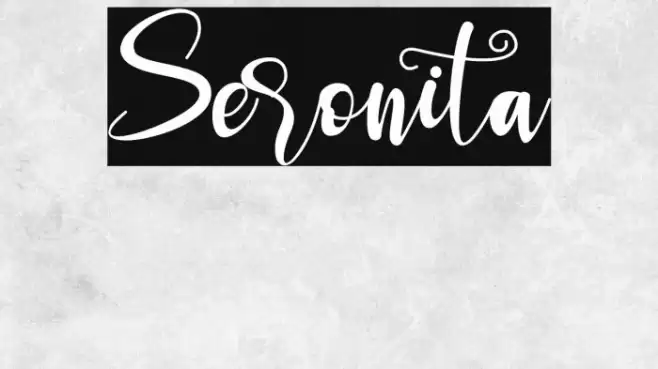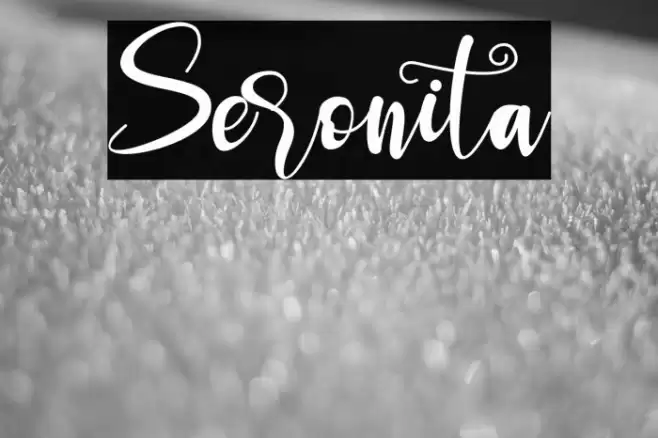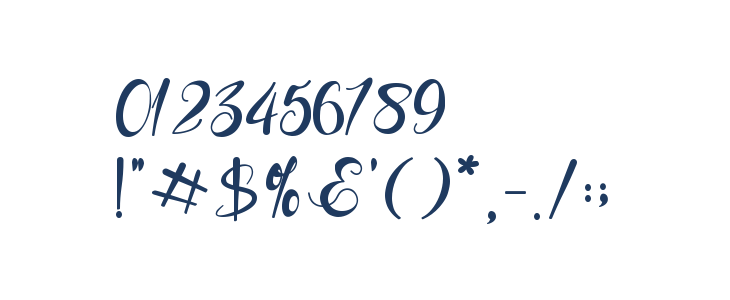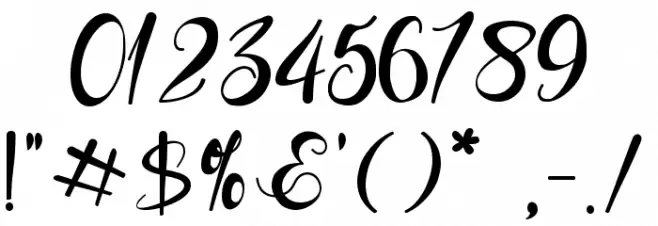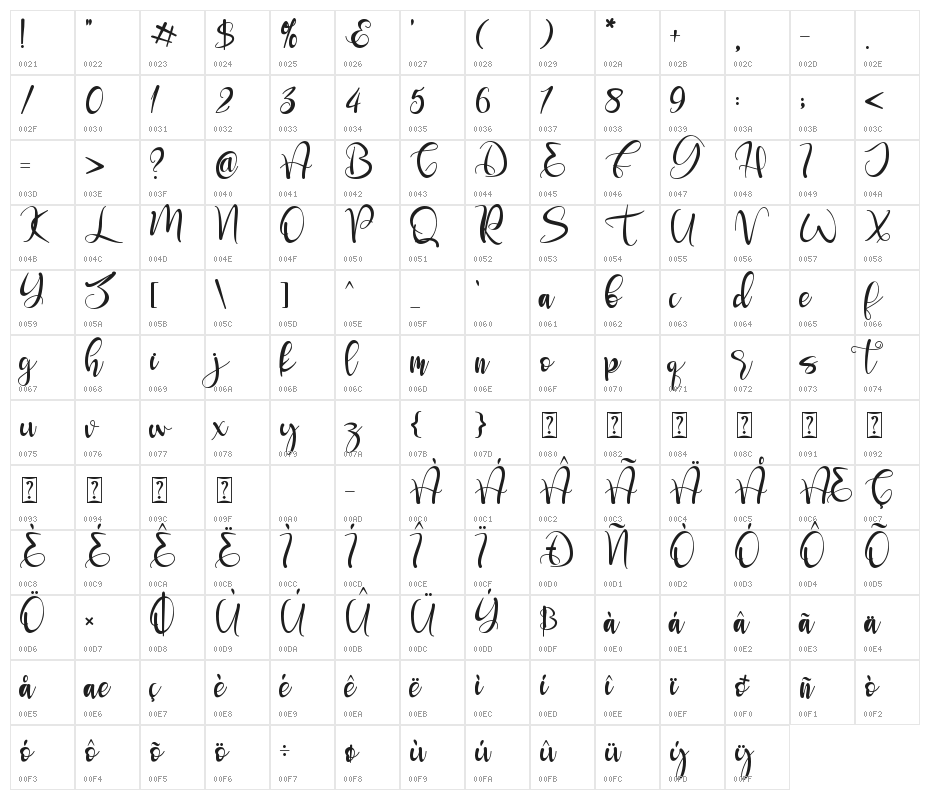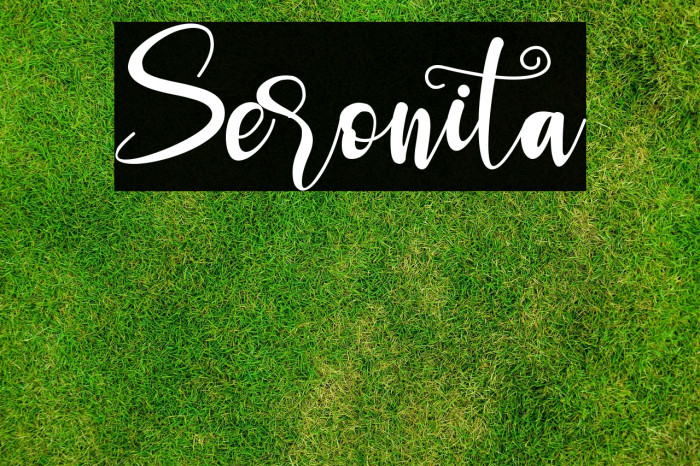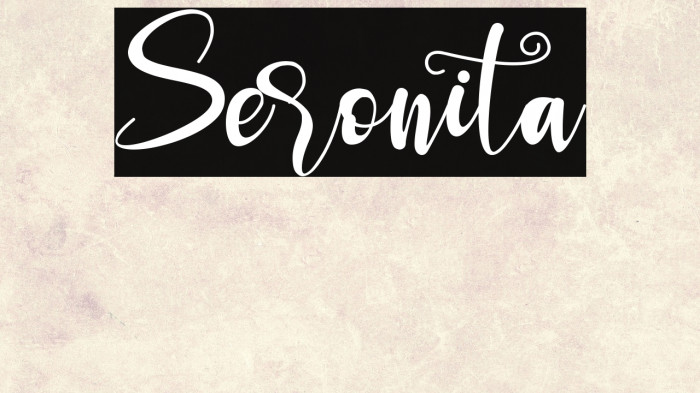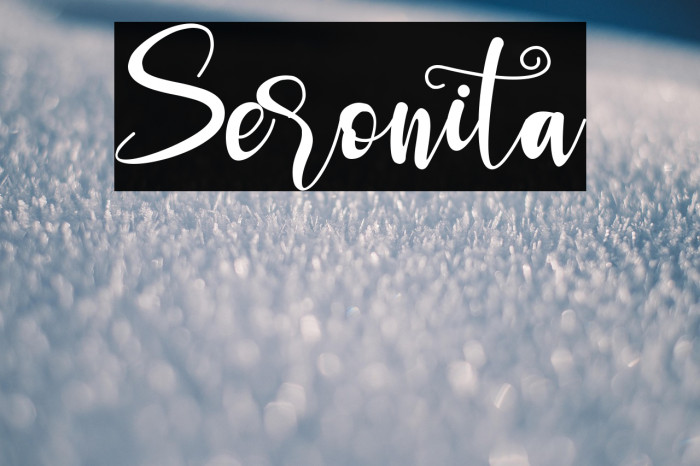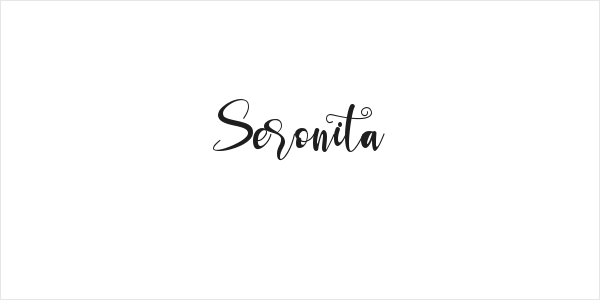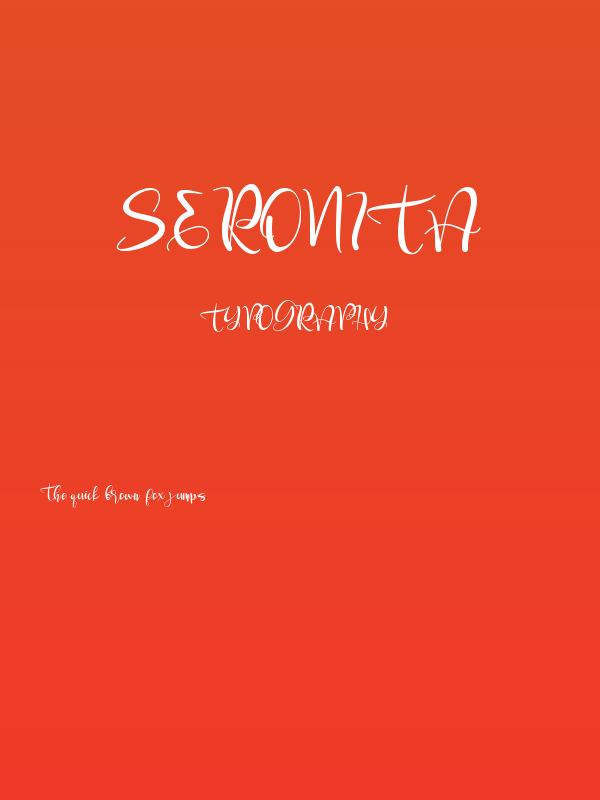
Seronita Font
Seronita Description
This font exudes a whimsical and elegant charm, characterized by its flowing, cursive style. The uppercase letters are adorned with intricate loops and flourishes, giving them a decorative and sophisticated appearance. The lowercase letters maintain a consistent flow, with some characters featuring unique embellishments that add to the font's artistic flair. The numerals are bold and slightly rounded, complementing the overall style. Special characters are creatively designed, maintaining the font's playful yet refined aesthetic. This font is perfect for projects that require a touch of elegance and creativity.
A whimsical and elegant cursive font with decorative flourishes from Regular fonts.
- Proposed Projects: Ideal for wedding invitations, greeting cards, branding, and artistic projects.
- Use Case: Logos, Headlines, Invitations